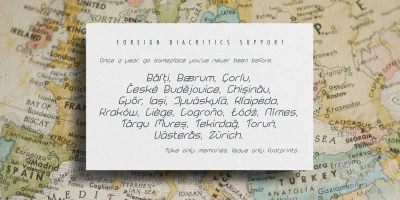
Magnetica Font Family
Magnetica Font
Please note that Magnetica Font must be purchased for commercial use. You are welcome to download and test this font for personal and non-commercial projects at no cost. This sleek, futuristic sans serif typeface is perfectly suited for a wide range of sophisticated and high-tech design applications, including clean logo design, modern corporate branding, scientific or technical documentation, digital interfaces (UI/UX), minimalist website text, and any project that requires a classy, unique, and powerful sense of magnetism and modernity.
The reason Magnetica Font is genuinely exciting is its precise, geometric foundation coupled with subtly rounded edges, giving it an elegant, professional, and contemporary appeal. It is crafted with clean lines and superior kerning, ensuring high legibility even in smaller text blocks, while its futuristic aesthetic makes large headlines instantly captivating. The font's modern simplicity is its strength, allowing it to convey a sense of innovation and sophistication without sacrificing clarity—making it a versatile powerhouse for both display and extended text use.
The Magnetica Font family offers a robust selection of styles for comprehensive design flexibility, typically including essential weights such as Regular, Italic, Bold, and Bold Italic. This focused family ensures that designers can maintain typographical hierarchy while preserving the font's signature minimalist look across different applications and devices. For a clean, modern, and powerfully attractive font choice, secure your Magnetica Font today.